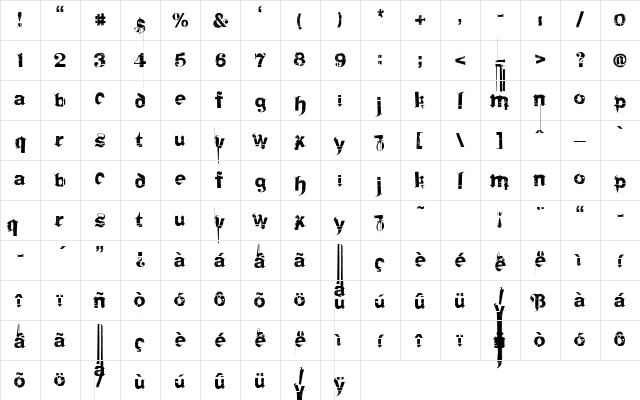
Frakturika Spamless draws on the rich tradition of blackletter calligraphy, with dense, angular strokes that evoke medieval manuscripts and old-world craftsmanship.
Font Pairing: Pair with a clean neutral sans-serif for body copy to let Frakturika Spamless's character lead without overwhelming the composition.
Pro Tip: Reserve Frakturika Spamless for display and logo use - pair it with a clean sans-serif for body copy to prevent the composition from feeling oppressive.